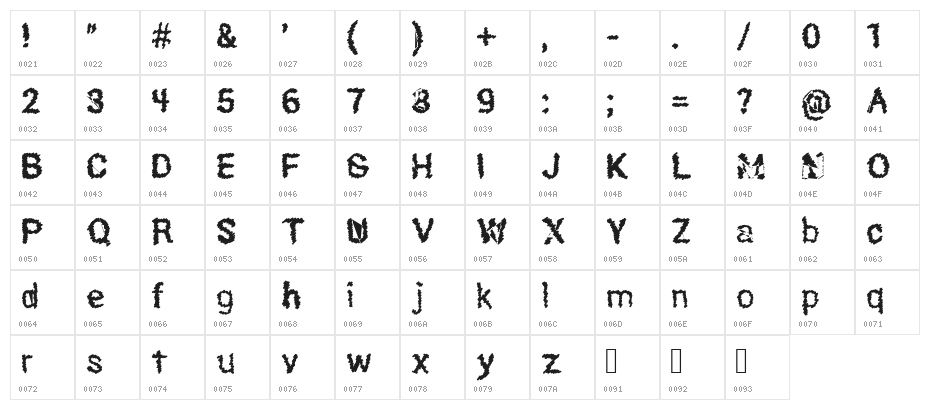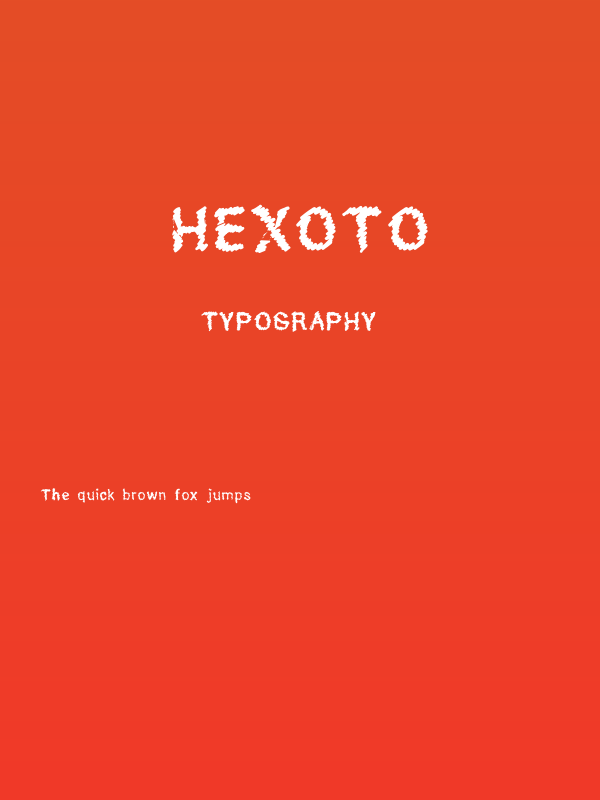
HEXOTO Font
HEXOTO Description
This font features a bold and rugged design with a distressed, textured appearance. Each character appears as if it has been roughly sketched or carved, giving it a unique, handcrafted feel. The uppercase and lowercase letters maintain a consistent style, with jagged edges and an irregular outline that adds to its raw aesthetic. Numbers and special characters follow the same design principles, ensuring a cohesive look across all glyphs. This font is ideal for projects that require a bold statement or an edgy, artistic touch.
Proposed ProjectsIdeal for album covers, posters, branding for edgy or alternative products, and any design needing a bold, artistic flair.